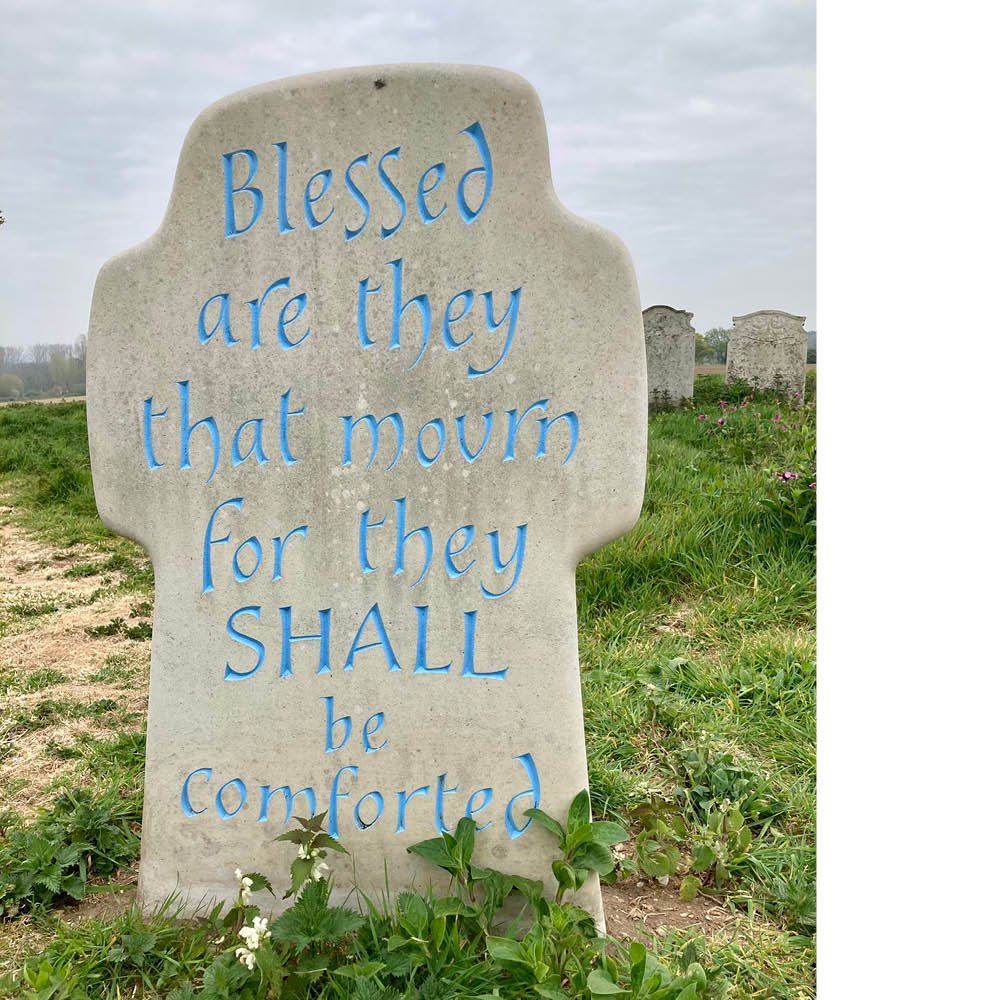
Blessed are they that Mourn by Robyn Golden-Hann
Portland stone
The artist was inspired by lines from ‘The Elixir’ by George Herbert:
‘This is the famous stone / That turneth all to gold; / For that which God doth touch and own / Cannot for less be told.’
‘Memorials fulfil our spiritual need to make a mark; to show that we were here. Letters, though nothing more than simple abstract shapes, convey complex ideas and expressions of humanity. Letter-carving is the alchemy through which the artist realises the magical power of letters and gives them meaning.’